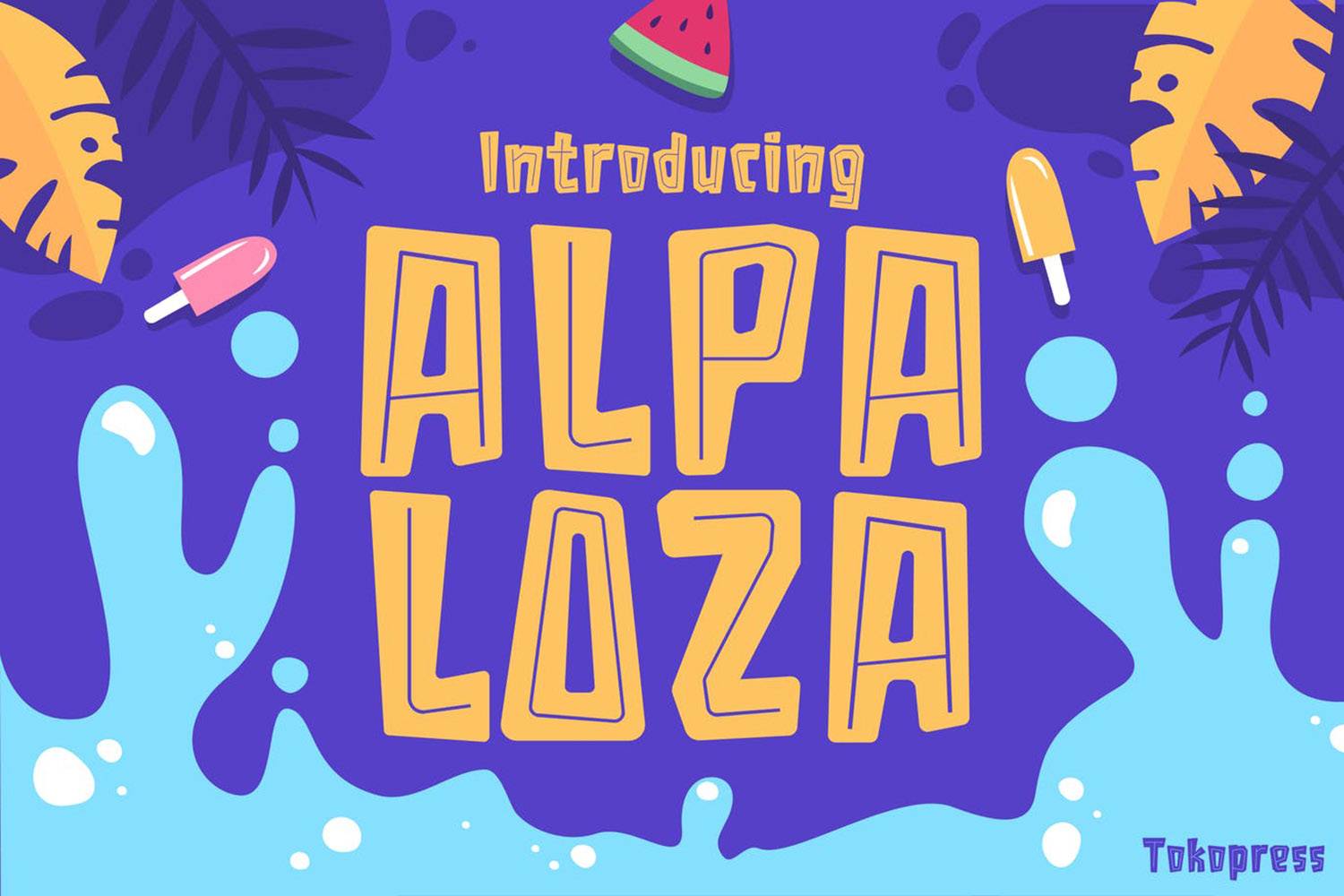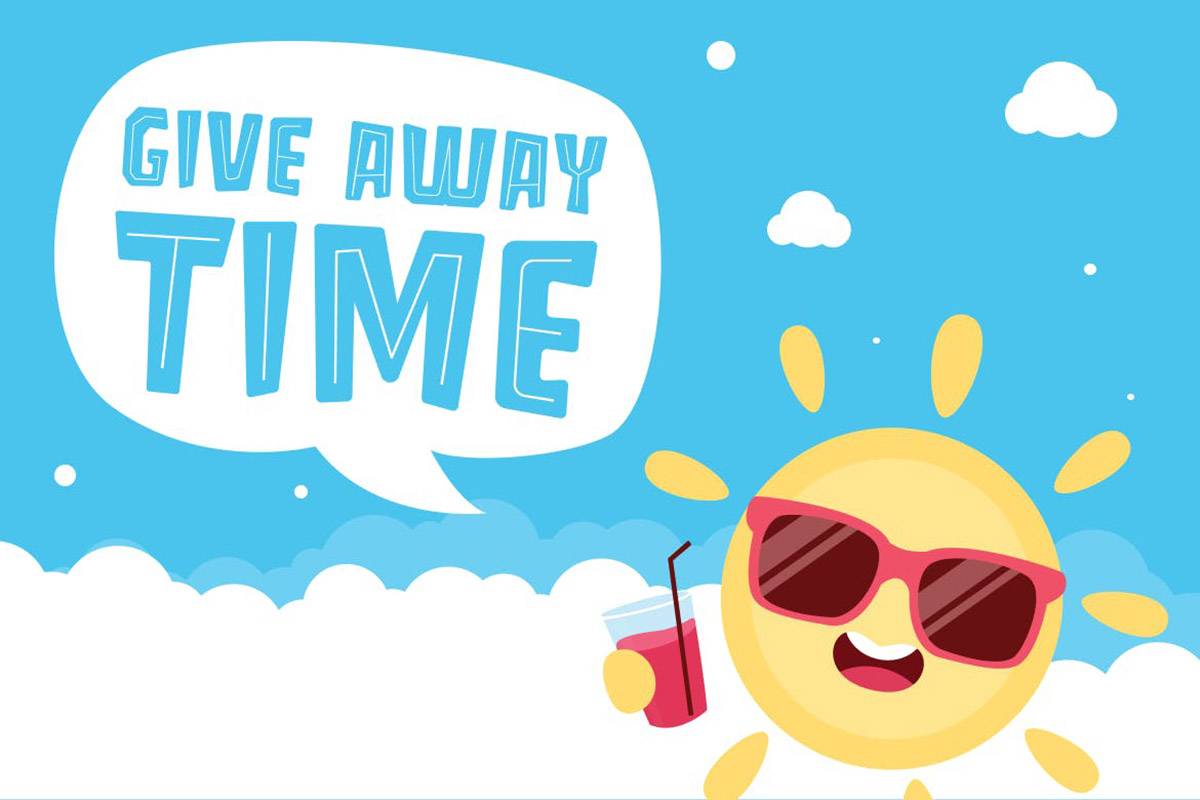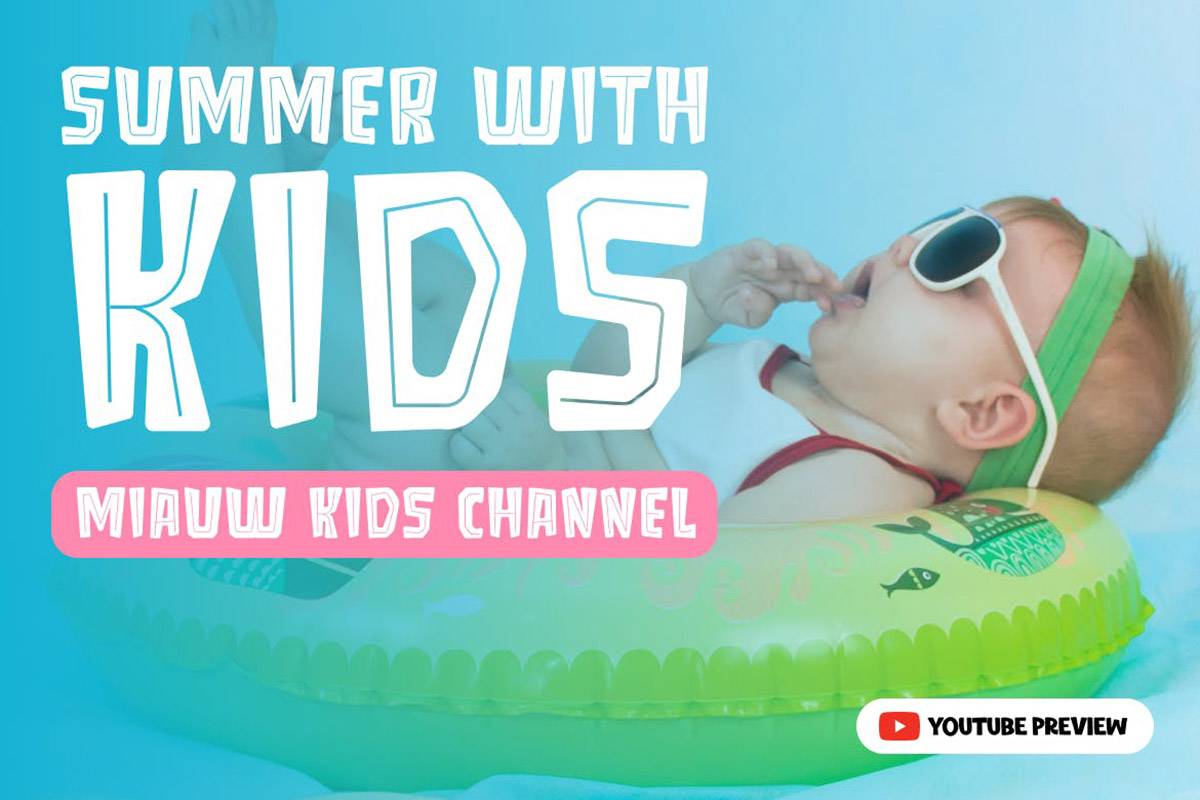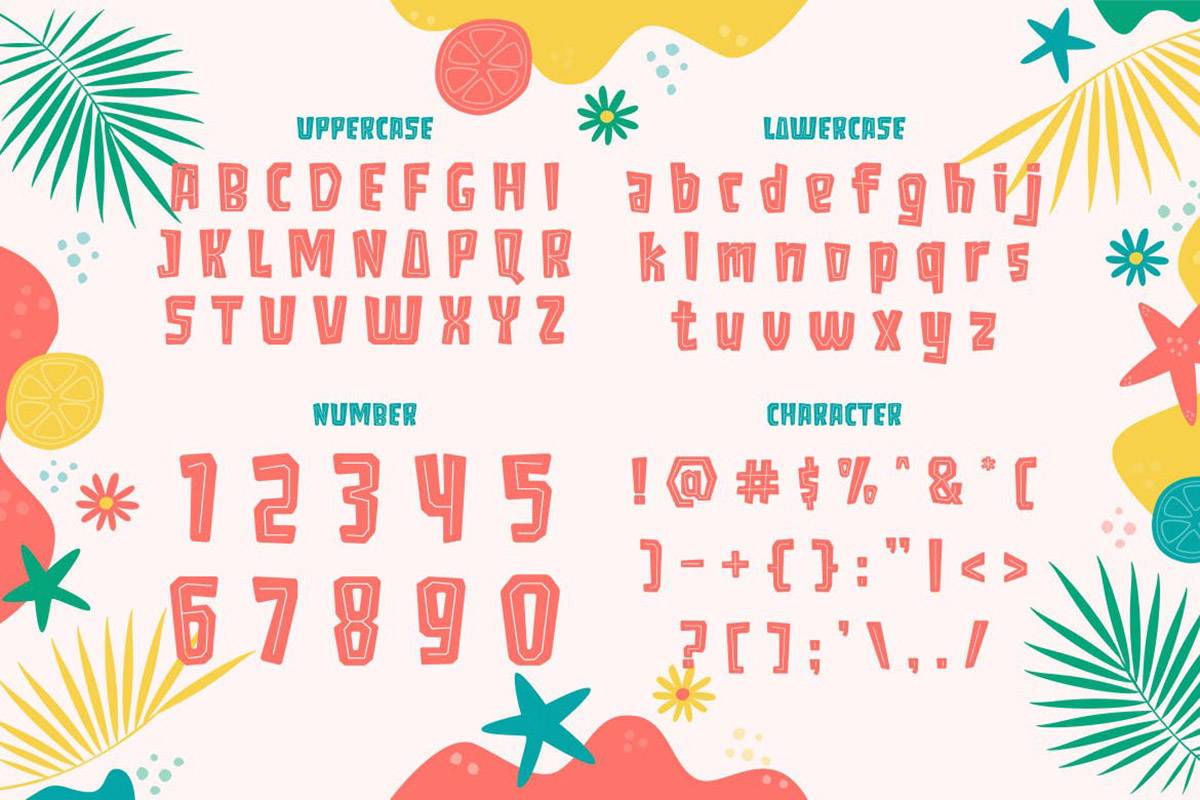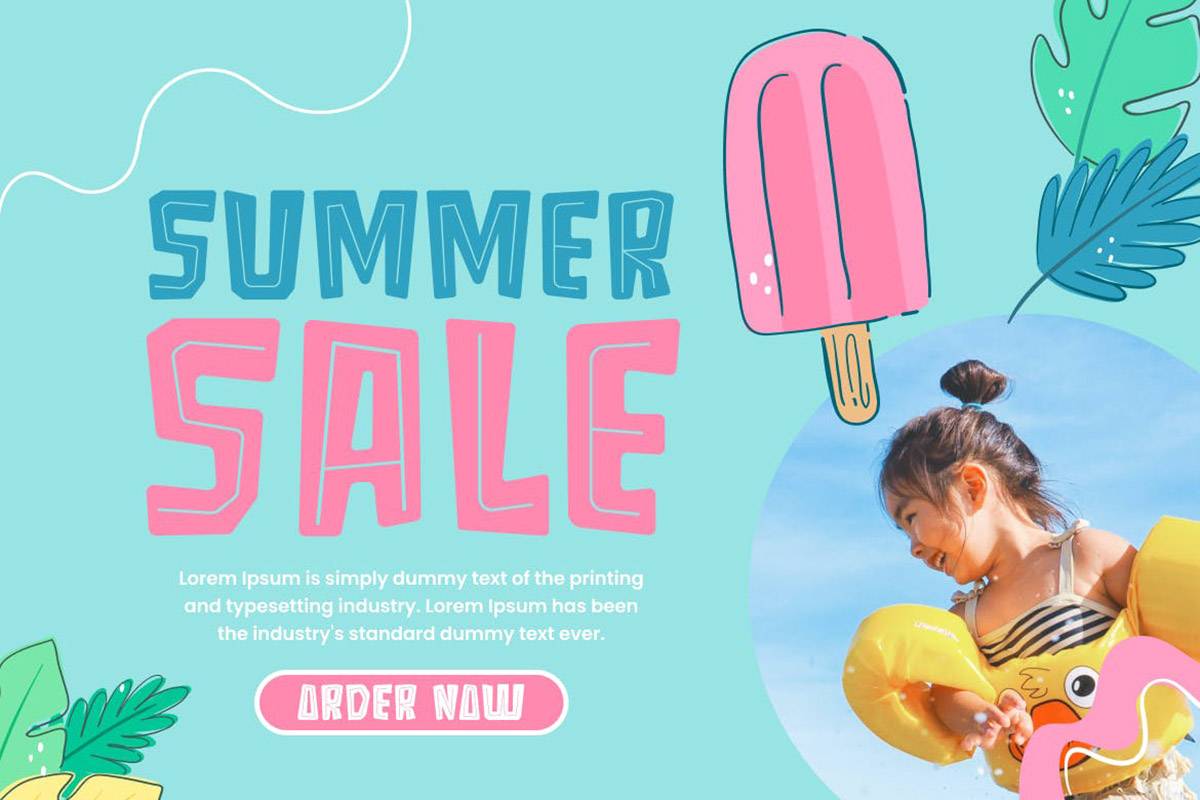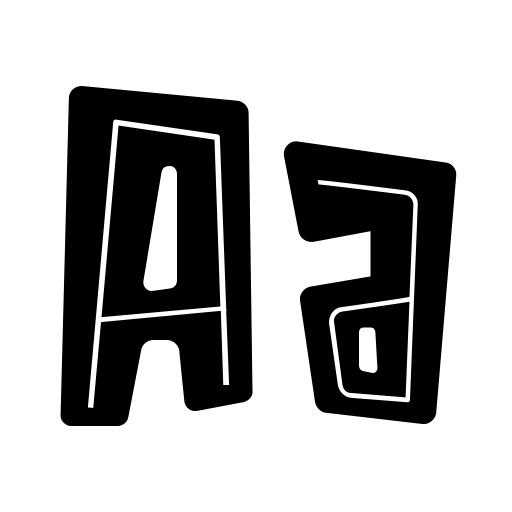
Alpaloza is a playful, bold sans serif font with a quirky, hand-drawn feel thanks to its uneven, slightly wavy letterforms and thick, blocky strokes. Its tall x-height and tight spacing make it eye-catching and easy to read in display use, perfect for fun, informal branding, posters, or headlines that want to stand out with personality. This font brings an energetic, youthful vibe, suitable for creative projects needing a lively, distinctive touch.
Alpaloza Font
About Alpaloza Font